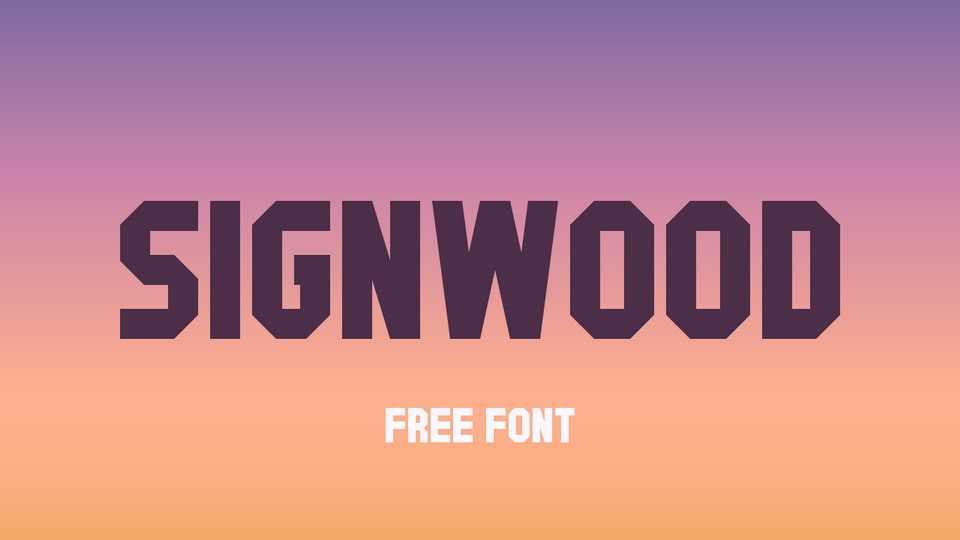
Download Signwood font, a blocky college-style display typeface that pays homage to the classic lettering found on athletic jerseys and university banners. With its bold presence and sharp edges, this typeface embodies the spirit of academic tradition and sportsmanship.